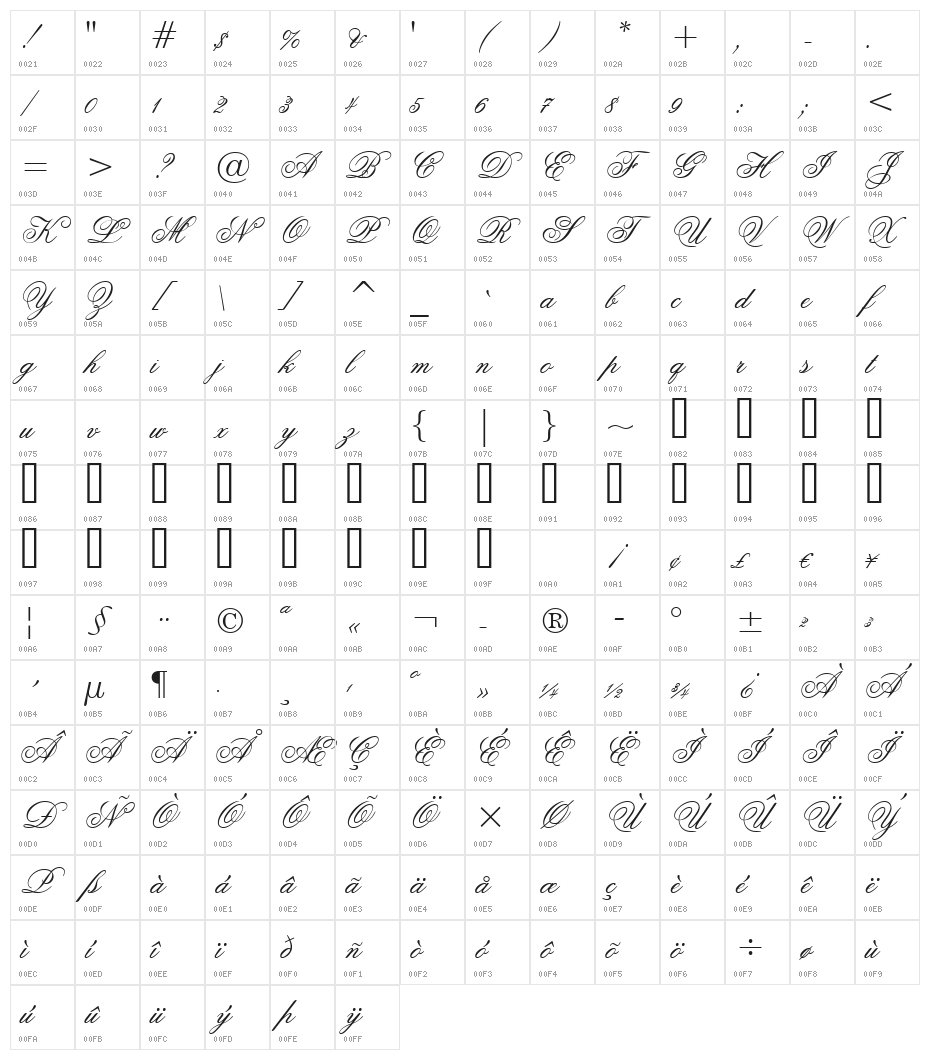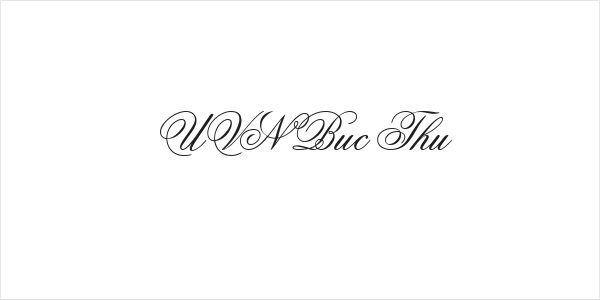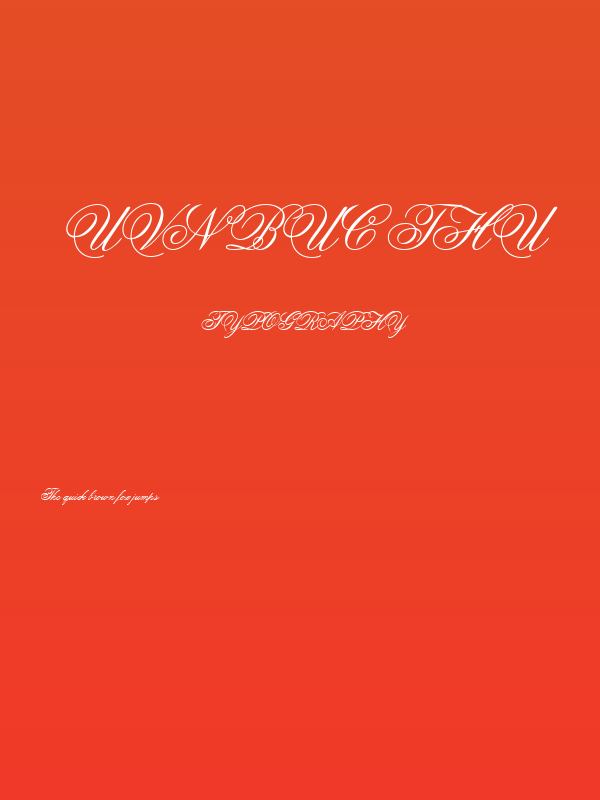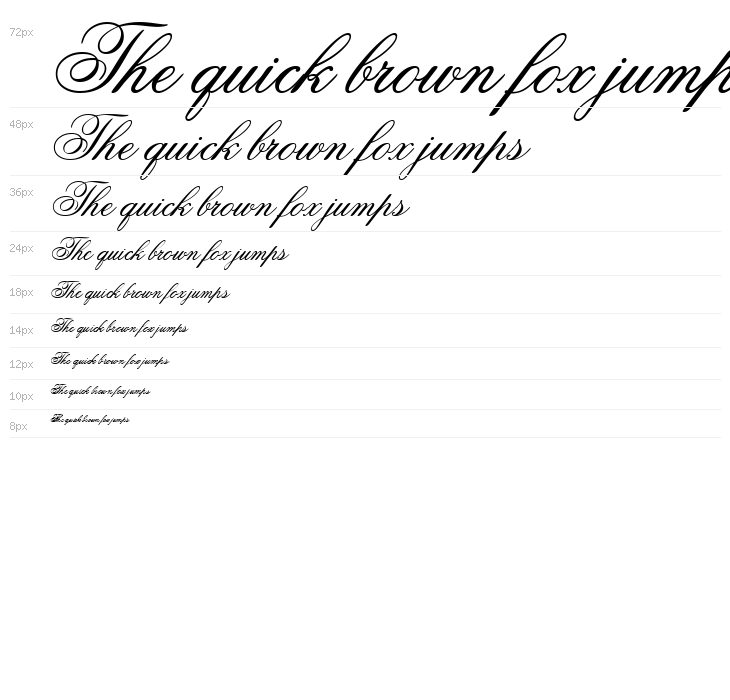
UVN Buc Thu Font
UVN Buc Thu Description
This elegant script font features intricate, flowing letterforms that exude a sense of sophistication and grace. The uppercase letters are particularly ornate, with elaborate loops and flourishes that add a decorative touch. The lowercase letters maintain a consistent style, with smooth, connected strokes that enhance readability while preserving the font's artistic flair. The numerals are styled to match the overall aesthetic, offering a cohesive look across all characters. Special characters are thoughtfully designed, incorporating the same level of detail and elegance. This font is perfect for projects that require a touch of class and refinement.
| Proposed Projects | Ideal for wedding invitations, luxury branding, elegant stationery, and high-end product packaging. |